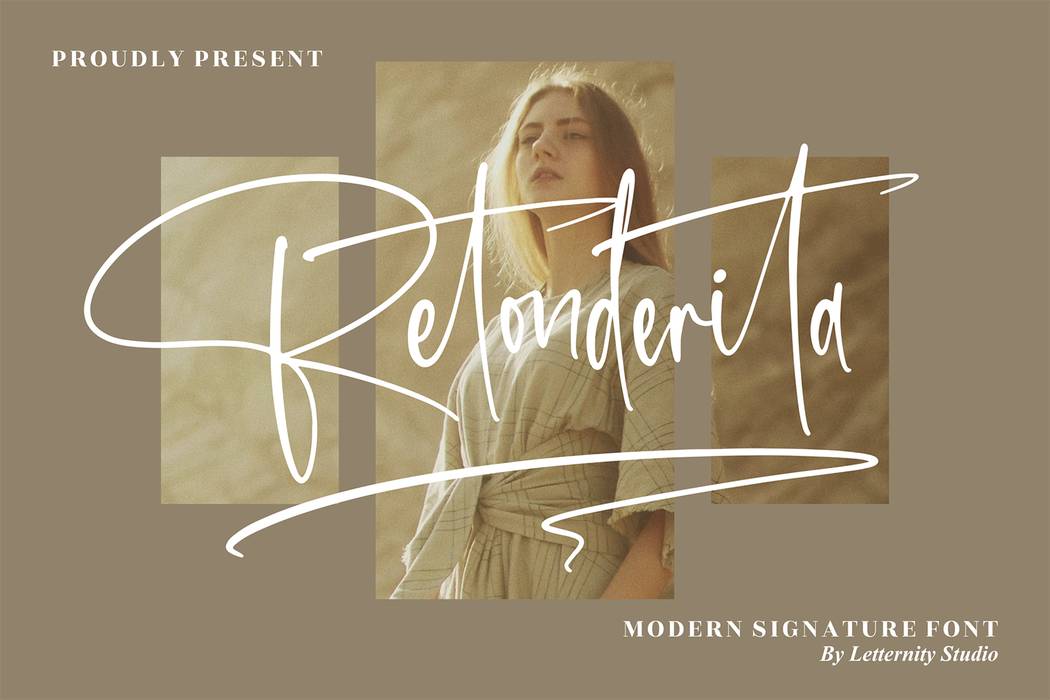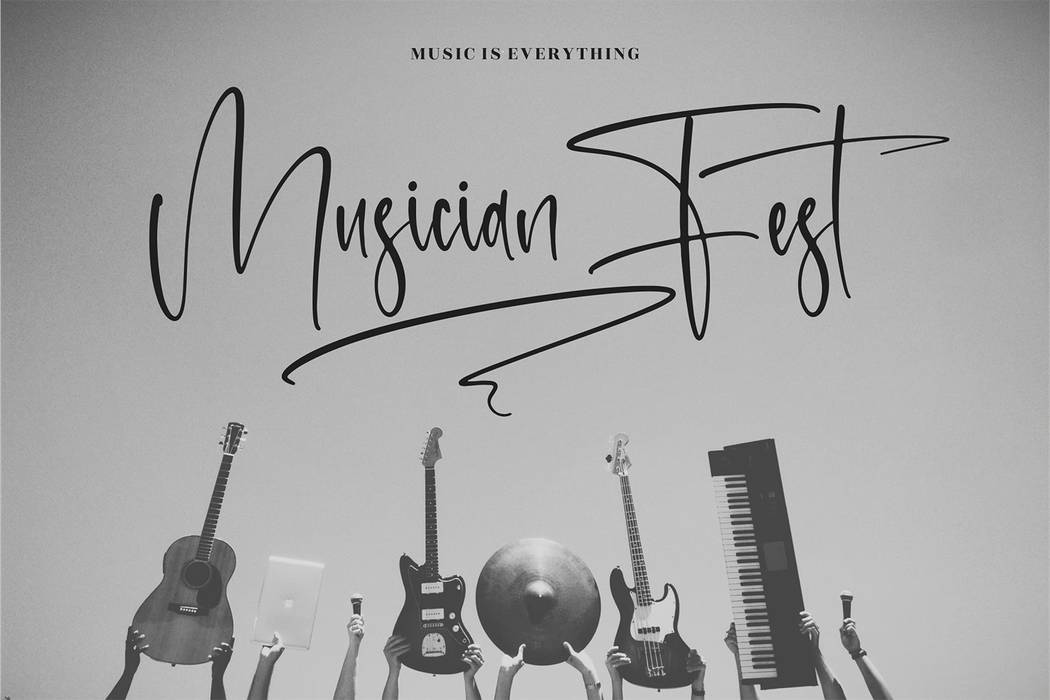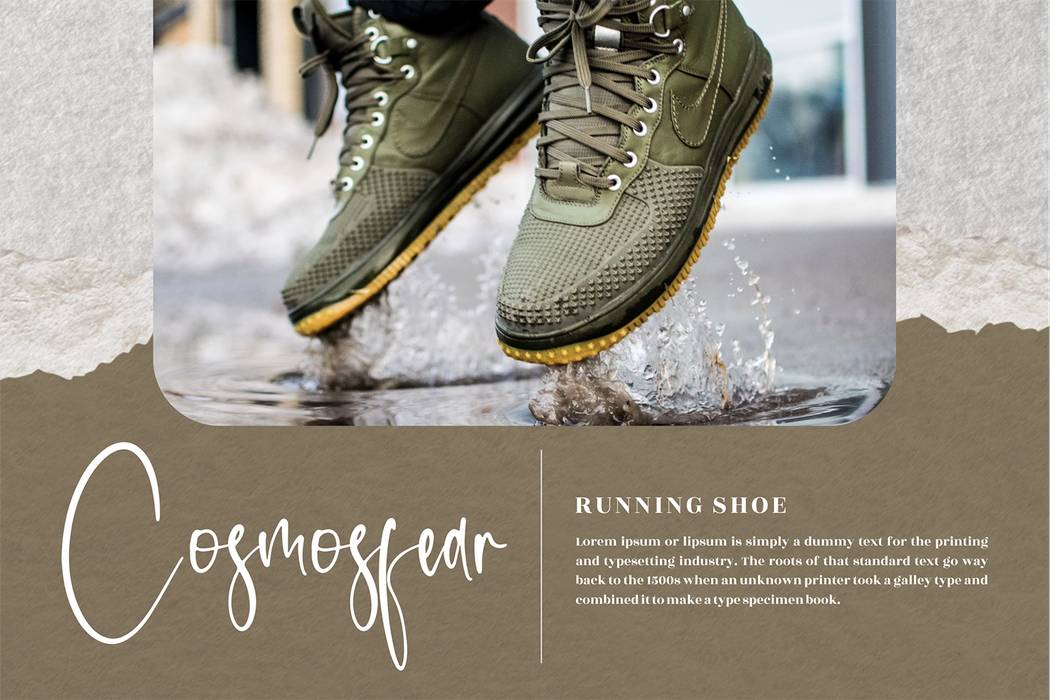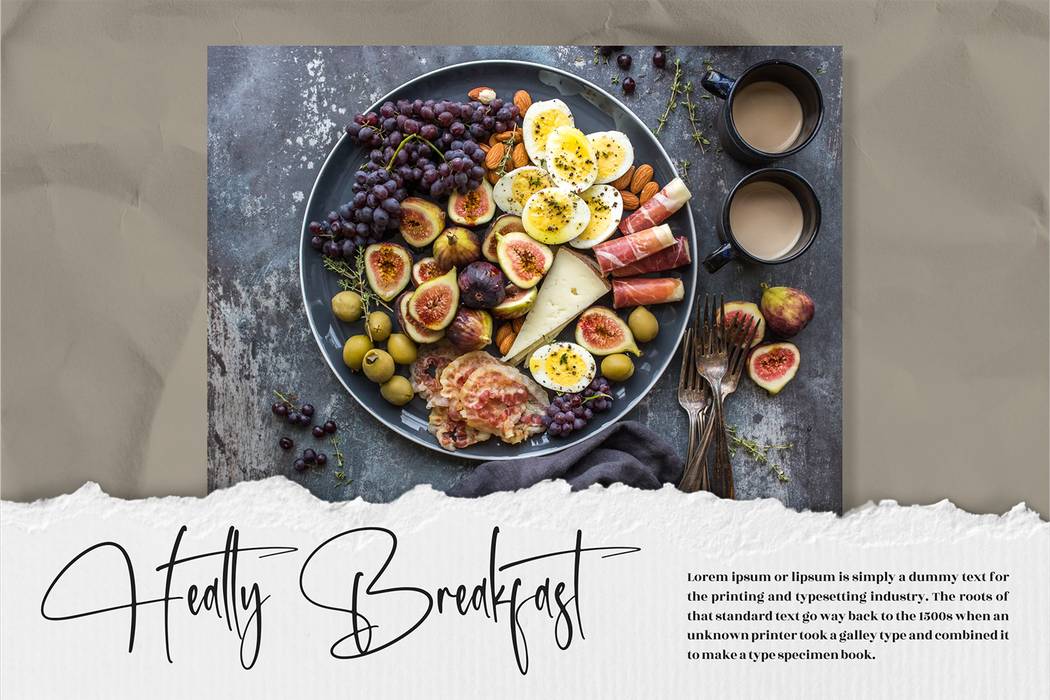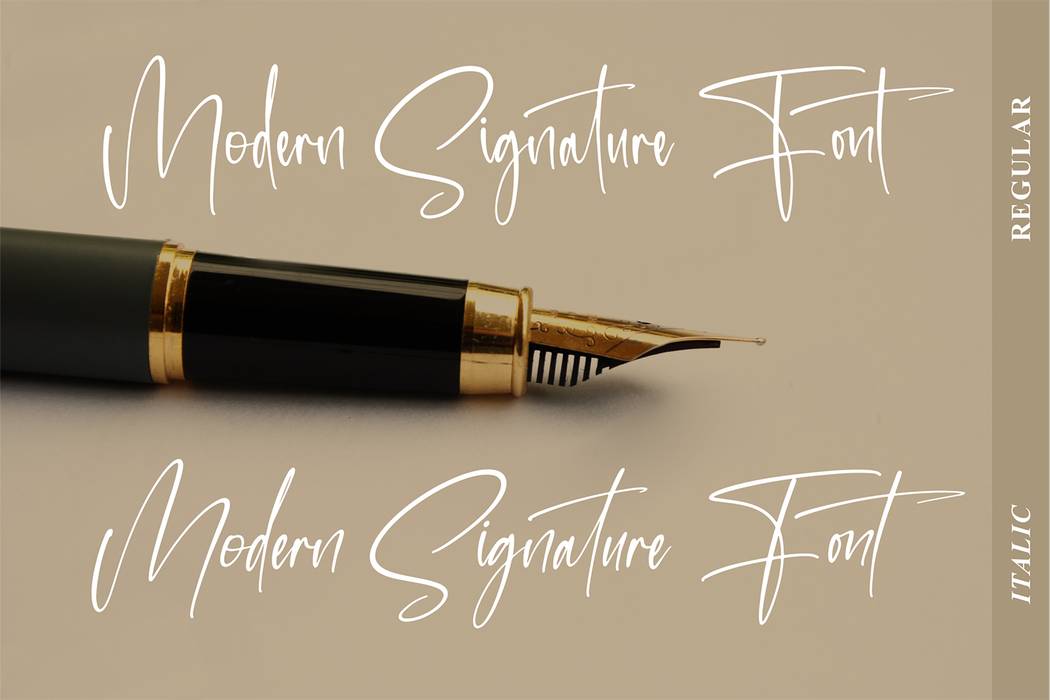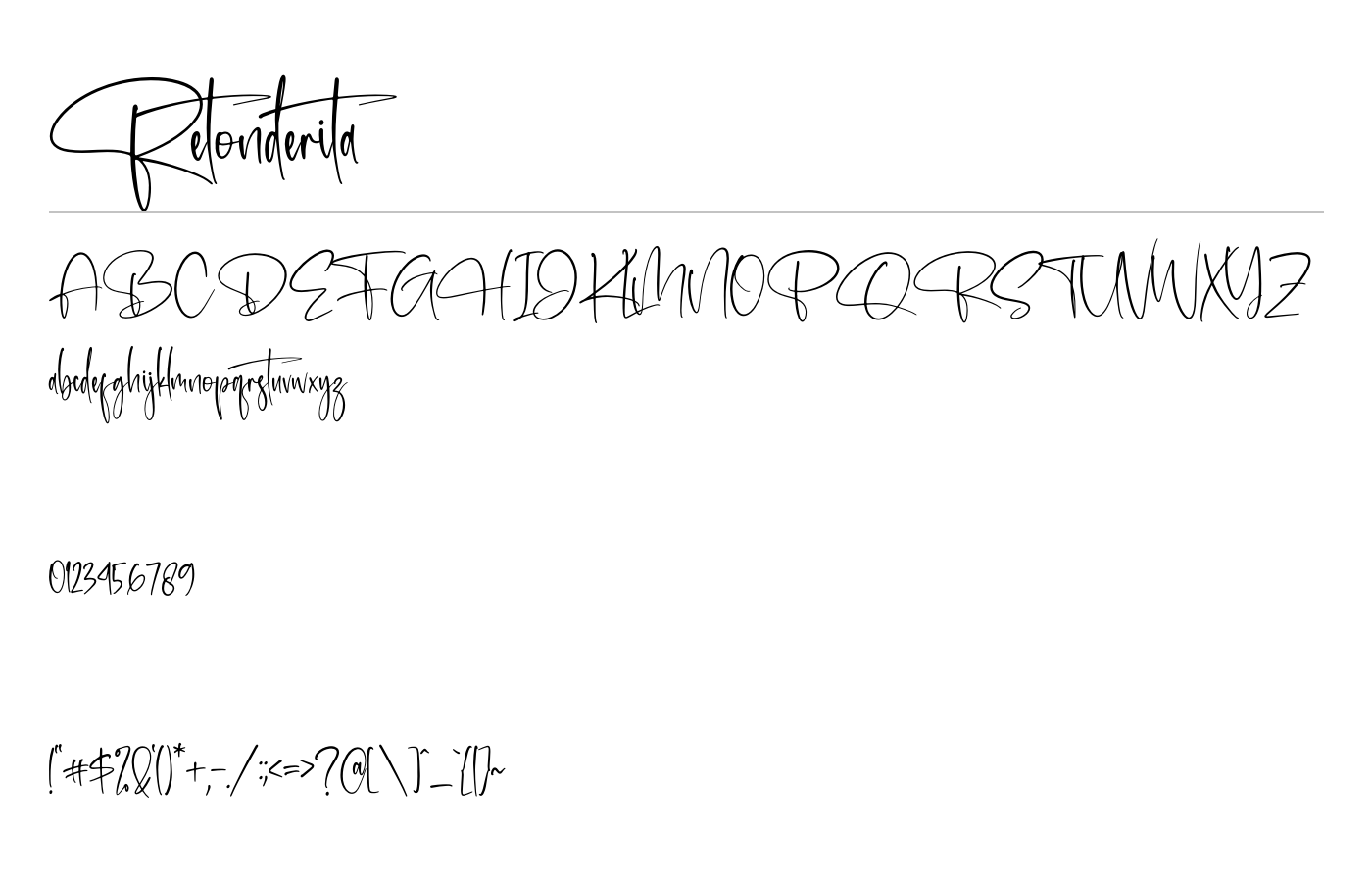
Retonderita is a delicate, handwritten script font featuring thin, airy strokes with an elegant and slightly playful vibe. Its tall, slender letterforms and smooth, flowing lines make it ideal for creative branding, invitations, and feminine or artistic designs that benefit from a personal, graceful touch. This font works best in headlines or logos where its unique, stylish character can shine.
Retonderita Font
About Retonderita Font
| Font family | Retonderita Font |